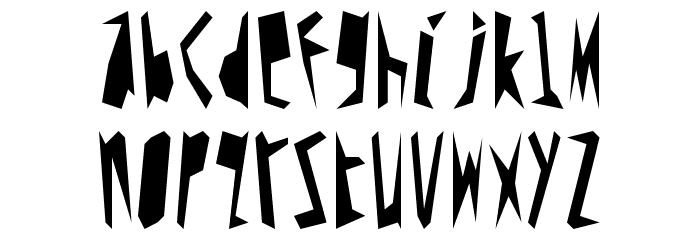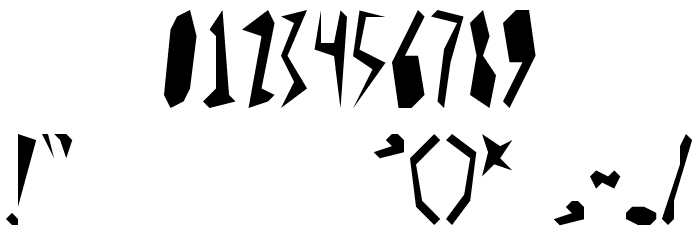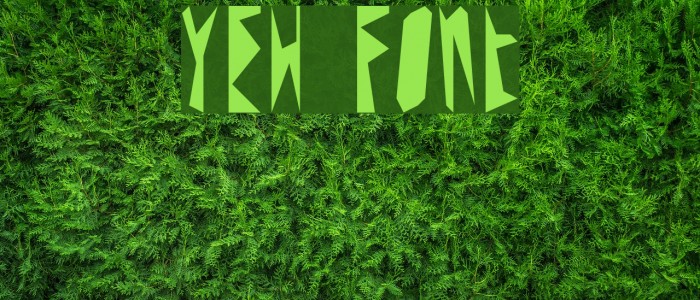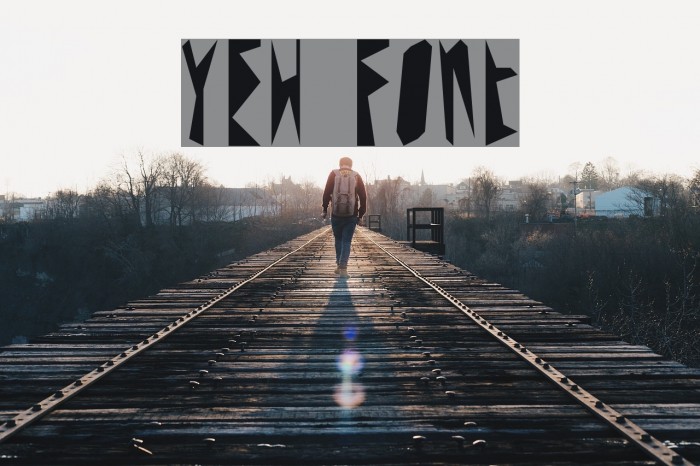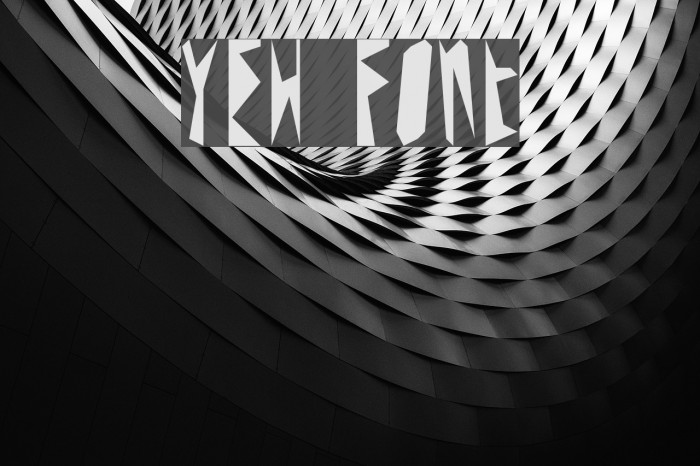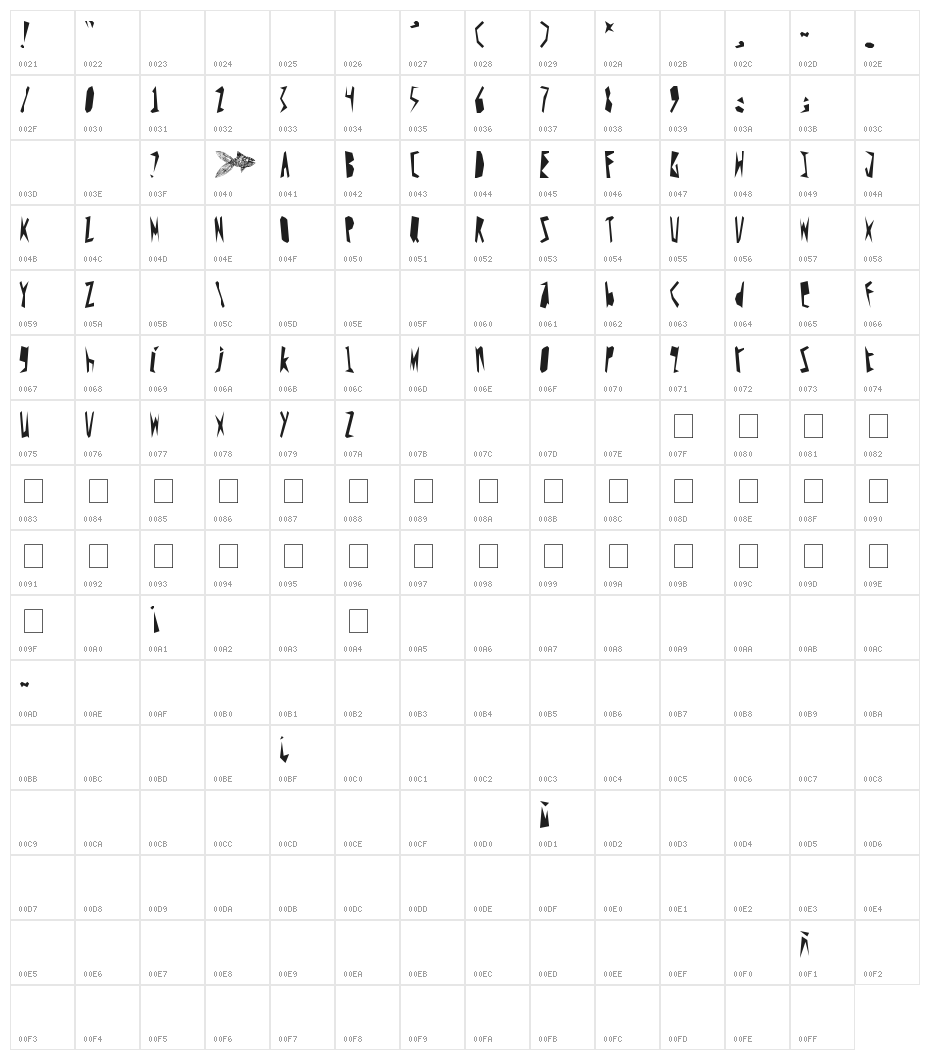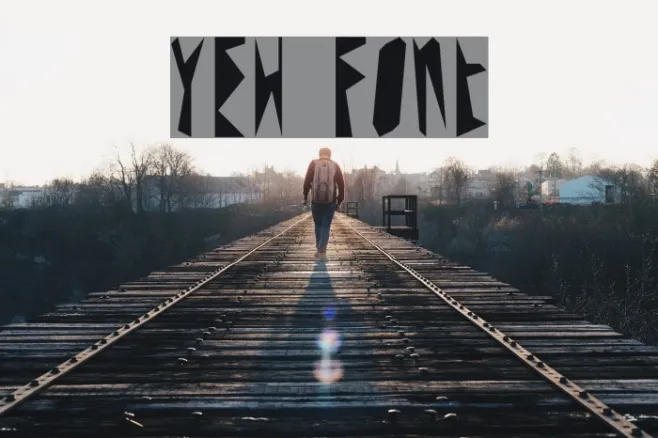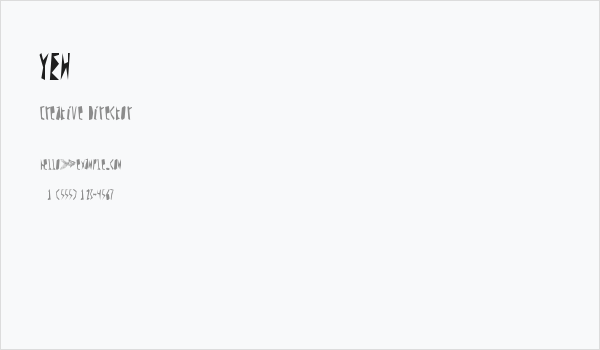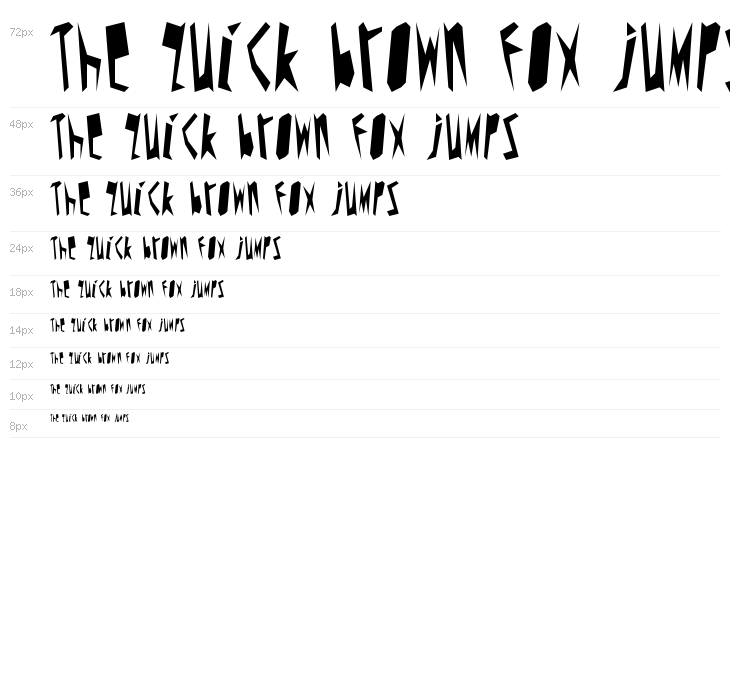
YEH Font
This font features a bold and edgy design with sharp, angular lines that give it a distinctly modern and rebellious feel. The characters are highly stylized, with exaggerated points and a dynamic, almost aggressive stance. The uppercase and lowercase letters maintain a consistent style, while the numbers and special characters follow the same angular theme. This font is perfect for projects that require a strong visual impact, such as posters, album covers, or branding for edgy or alternative products.
A bold, angular font with a modern, rebellious style.
- Proposed Projects: Ideal for posters, album covers, branding for alternative products, and any design needing a bold statement.